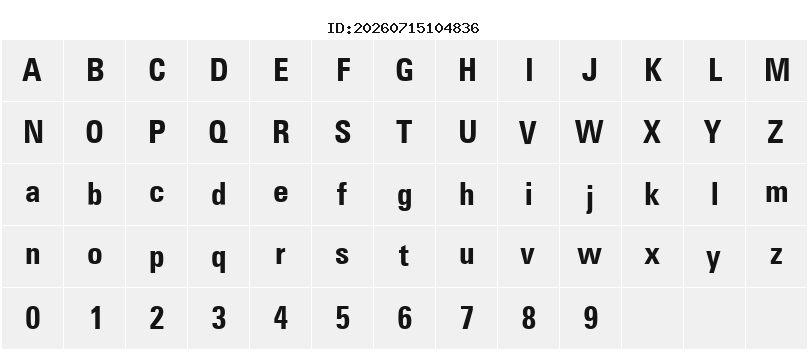
Zurich Cn BT Preview
• Font Name: Zurich Cn BT
• Font ID: Zurich Bold Condensed, Swiss 742
• Full Font Name: Zurich Cn BT Bold
About Zurich Cn BT.ttf
Zurich Cn BT.ttf is a modern, elegant sans-serif font designed for ultimate readability and visual harmony. Perfect for branding, headlines, web design, and print materials.